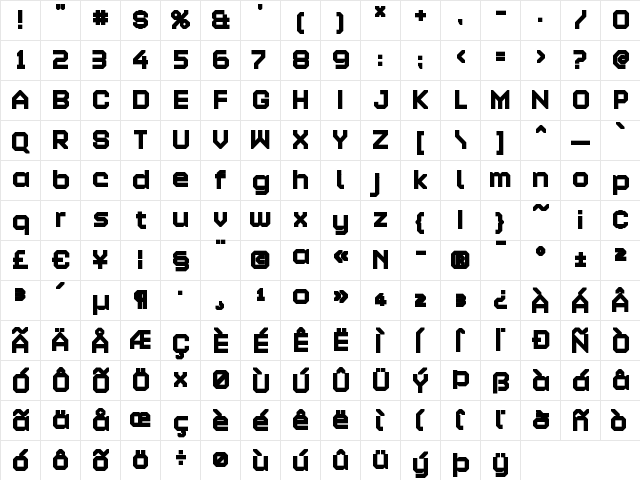
Alloy ExtraBold
Design Context for Alloy Typeface
Alloy takes a measured approach to typography — its balanced proportions and neutral character make it a reliable workhorse for both digital and print work. The heavy weight commands attention and anchors typographic hierarchies.